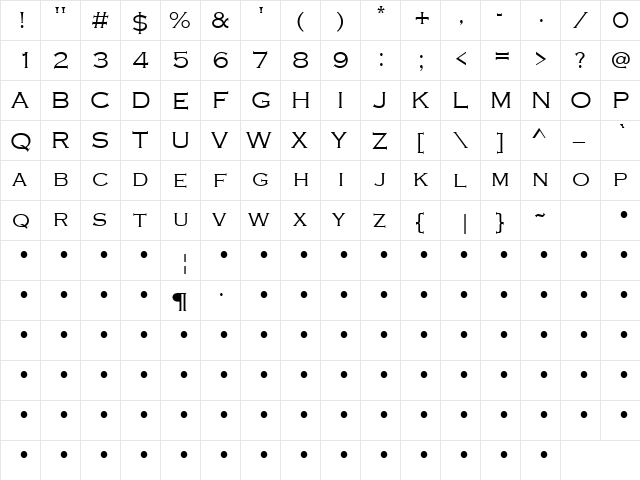
QTGraveure Regular Font Preview
QTGraveure Regular
QTGraveure Regular Font Details
Design Context for QTGraveure Typeface
QTGraveure takes a measured approach to typography — its balanced proportions and neutral character make it a reliable workhorse for both digital and print work.